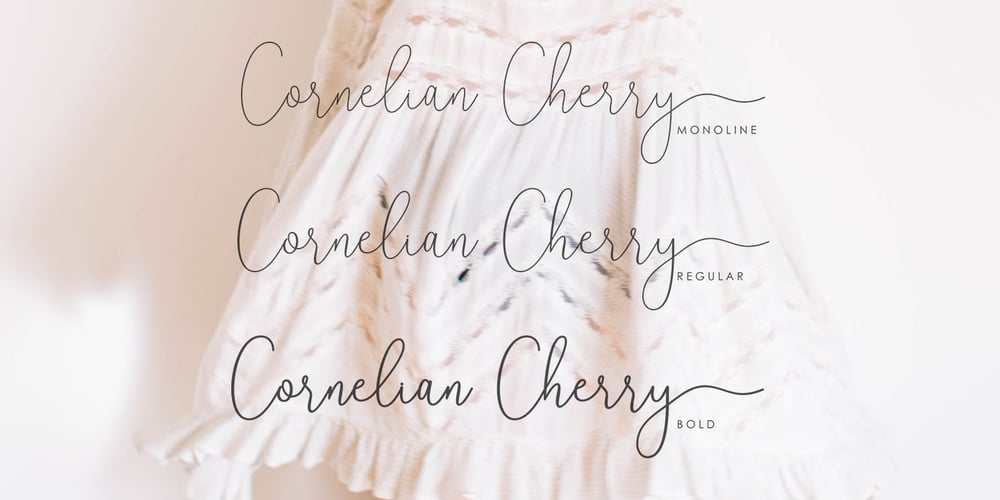
Randing Font Family was designed by M Akmal and published by Mega Type. Randing contains 3 styles and family package options. Randing Signature Font is signature style font with stunning characters, including Monoline, Regular and Bold. This font is casual and pretty with swashes. Can used for various purposes. such as logo, product packaging, wedding invitations, branding, headlines, signage, labels, signature, book covers, posters, quotes and more. Randing Signature Font features OpenType stylistic alternates, ligatures and International support for most Western Languages is included. To enable the OpenType Stylistic alternates, you need a program that supports OpenType features such as Adobe Illustrator CS, Adobe Indesign & CorelDraw X6-X7, Microsoft Word 2010 or later versions.How to access all alternative characters using Adobe Illustrator: https://www.youtube.com/watch?v=XzwjMkbB-wQ Randing Signature Font is coded with PUA Unicode, which allows full access to all the extra characters without having special designing software. Mac users can use Font Book , and Windows users can use Character Map to view and copy any of the extra characters to paste into your favourite text editor/app.How to access all alternative characters, using Windows Character Map with Photoshop: https://www.youtube.com/watch?v=Go9vacoYmBw If you need help or have any questions, please let me know. I’m happy to help ๐ Thanks & Happy Designing!